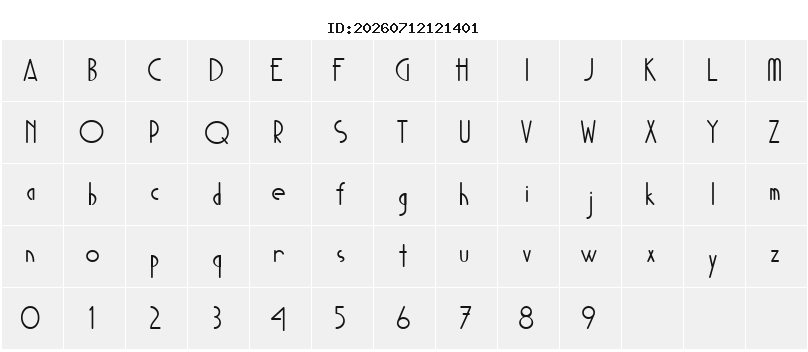
• Font Name: Magic Mush
Magic Mush.ttf is a modern, elegant sans-serif font designed for ultimate readability and visual harmony. Perfect for branding, headlines, web design, and print materials.